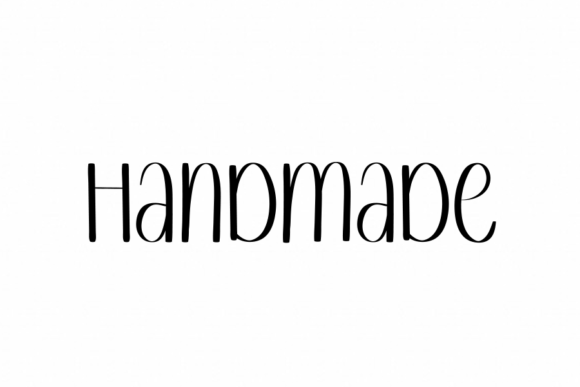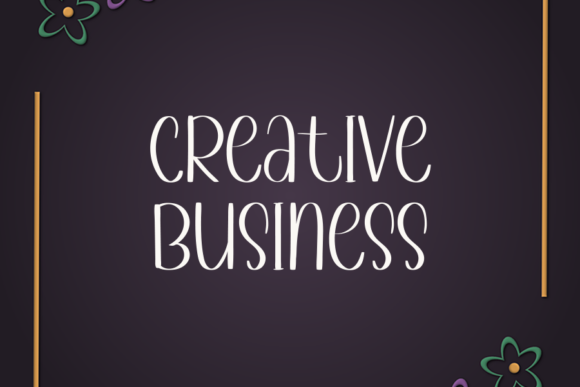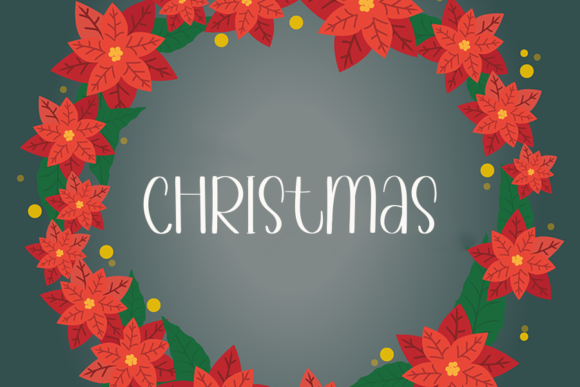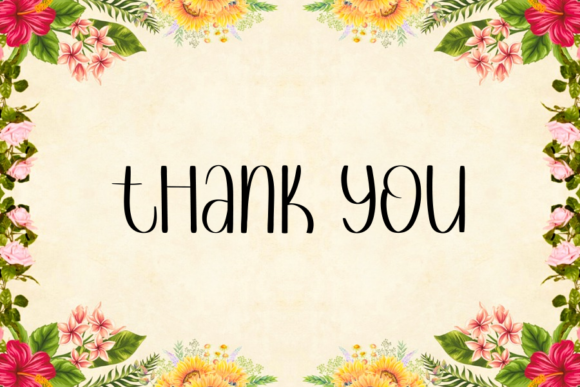
Introducing Beautiful Flower Font: A Sweet and Friendly Handwritten Delight
Are you a designer or crafter looking for a font that can add a touch of elegance and whimsy to your projects? Look no further than the Beautiful Flower Font, a sweet and friendly handwritten font that is sure to capture your heart. With its natural and unique style, this font is incredibly versatile and can be used in a wide range of designs, from invitations and greeting cards to branding and packaging.
Handwritten fonts have a way of adding a personal touch to any design. They evoke a sense of warmth, friendliness, and approachability that can be difficult to achieve with more formal fonts. The Beautiful Flower Font is no exception, with its delicate and flowing script that is reminiscent of handwritten notes and letters. Whether you’re creating a design for a special occasion or just want to add some personality to your brand, this font is sure to delight.
What Makes Beautiful Flower Font So Special?
So, what sets the Beautiful Flower Font apart from other handwritten fonts? For starters, its natural and unique style makes it incredibly fitting for a wide range of designs. The font’s delicate flourishes and subtle imperfections give it a distinctly handmade feel that is sure to resonate with designers and crafters. Additionally, the font’s friendly and approachable vibe makes it perfect for projects that require a personal touch.
The only limit to what you can create with the Beautiful Flower Font is your imagination! This font can be used in a wide range of designs, including:
- Invitations and greeting cards: Add a touch of elegance and whimsy to your invitations and greeting cards with this beautiful font.
- Branding and packaging: Use the Beautiful Flower Font to create a unique and memorable brand identity that stands out from the crowd.
- Stationery and journals: Add a personal touch to your stationery and journals with this lovely font.
- Signs and banners: Create eye-catching signs and banners with the Beautiful Flower Font that are sure to grab attention.
Tips for Using Beautiful Flower Font
Here are a few tips for getting the most out of the Beautiful Flower Font:
- Experiment with different sizes and colors to find the perfect look for your design.
- Pair the font with other design elements, such as illustrations or graphics, to create a unique and eye-catching design.
- Don’t be afraid to get creative and try out new and unusual design ideas.
Key Features of Beautiful Flower Font
- Sweet and friendly handwritten font
- Natural and unique style
- Incredibly versatile and can be used in a wide range of designs
- Delicate flourishes and subtle imperfections give it a distinctly handmade feel
- Perfect for projects that require a personal touch